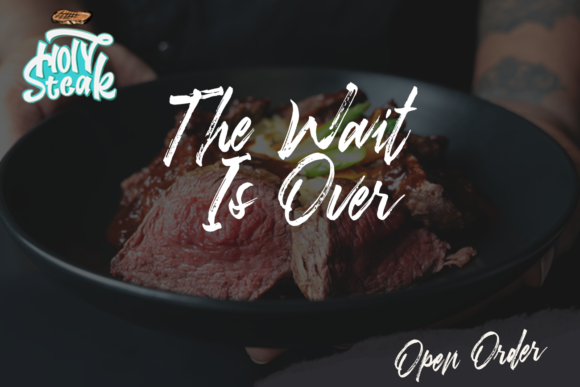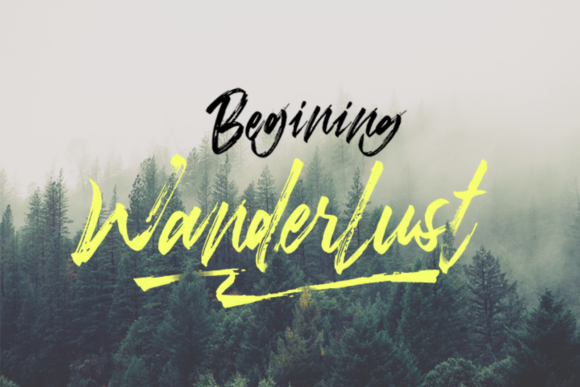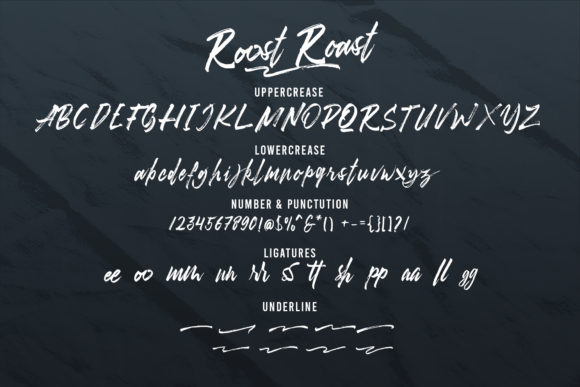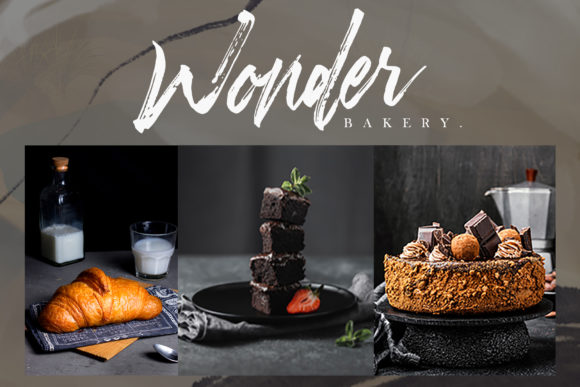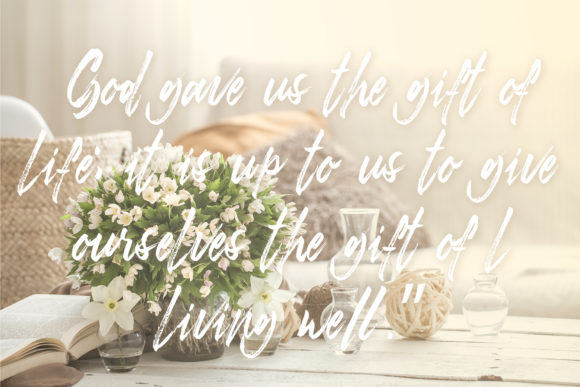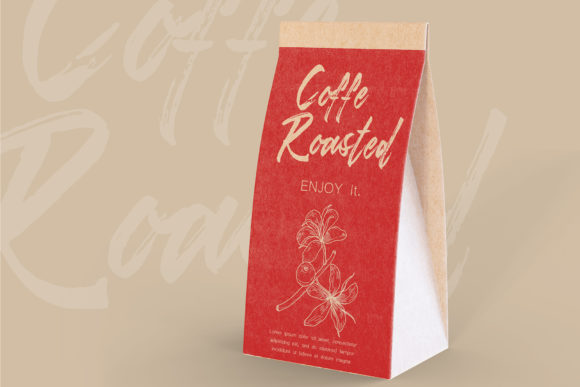
Introduction to Roost-Roast Font
Roost Roast is a casual, fun handwritten font, created by using a brush pen.
Clean and a little bit quirky, this font is the perfect fit for all of your logos, branding, social media, and crafty DIY projects .